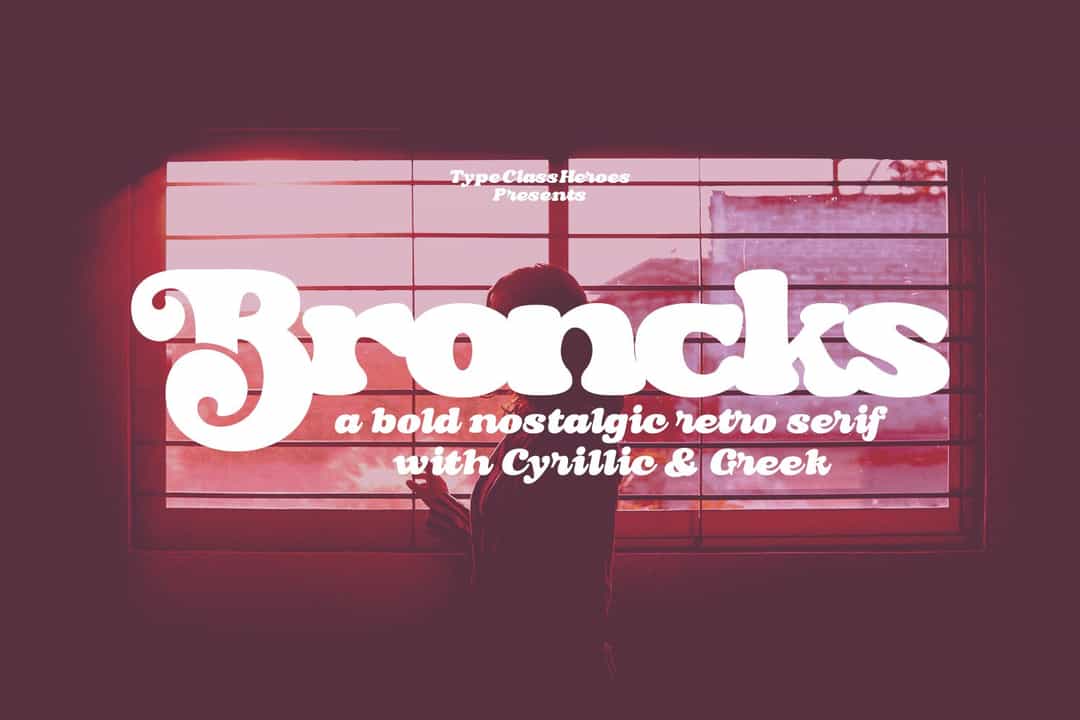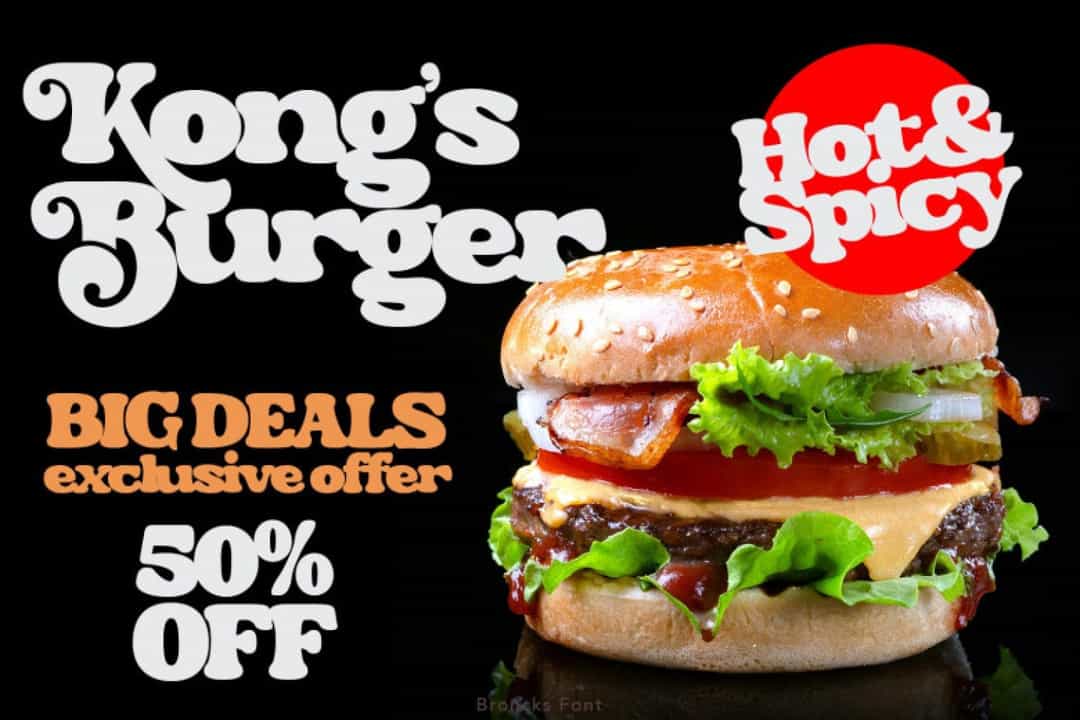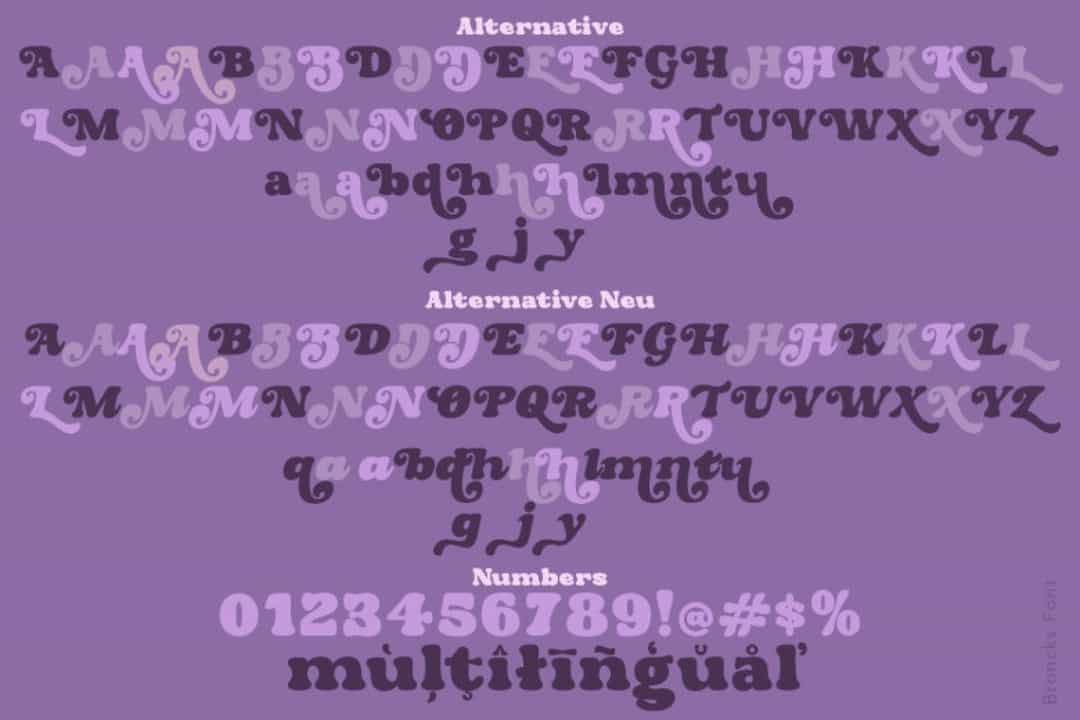
Broncks is an old-fashioned retro font featuring vintage style serifs and refined details that you can combine for rhythmic reading. This font supports over 100 Latin-based languages as well as extensive Cyrillic and Greek compatibility that includes Russian, Bulgarian, Ukrainian among many others.